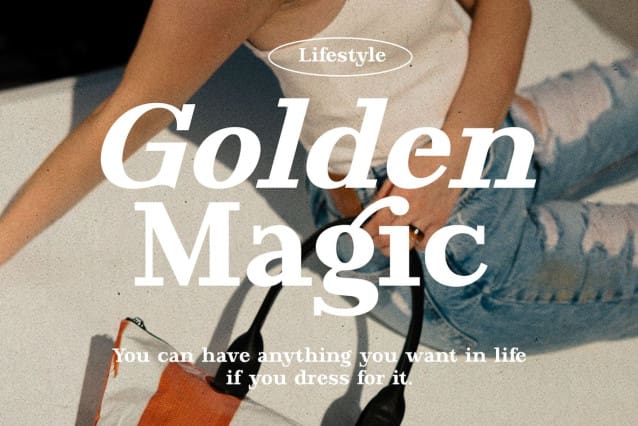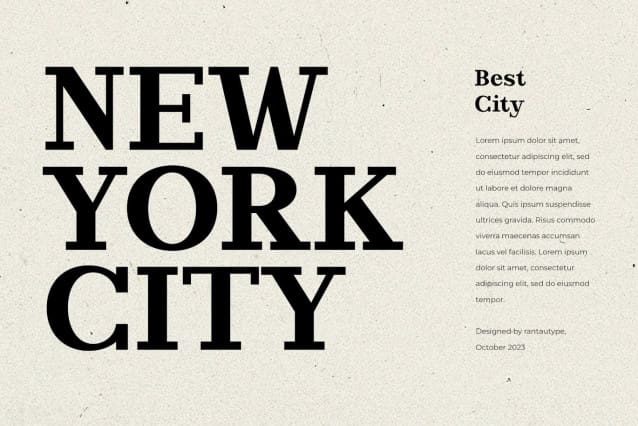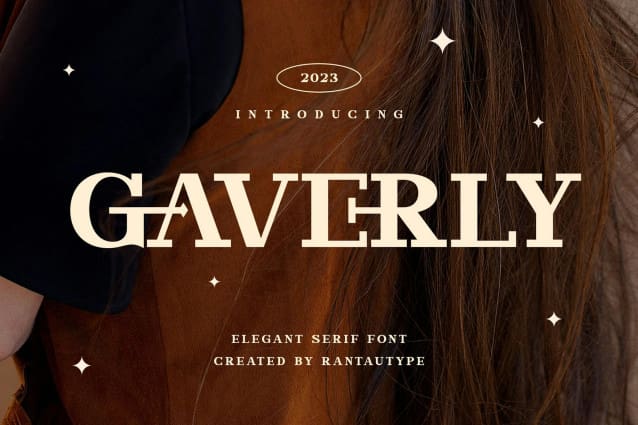
Gaverly Font
Gaverly Font – an elegant Serif display board with a sophisticated shape. We love the way it looks, making it a professional product. We make this font look trendy, elegant, luxurious, premium, modern, eye-catching and easy to use. Gaverly comes with two fonts (normal and italic), alternate, ligature and accent support multilingual.
Gaverly Font is a great choice for any creative activity, perfectly suited for creating elegant and classy designs such as logos, titles, covers, branding, displays and magazines, corporate, commercial projects, advertising projects. wedding, advertising projects and much more. You can now choose Gaverly to make your project stand out!